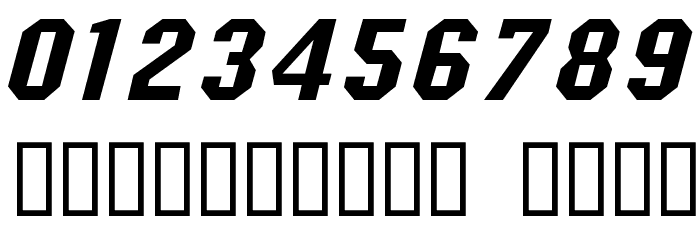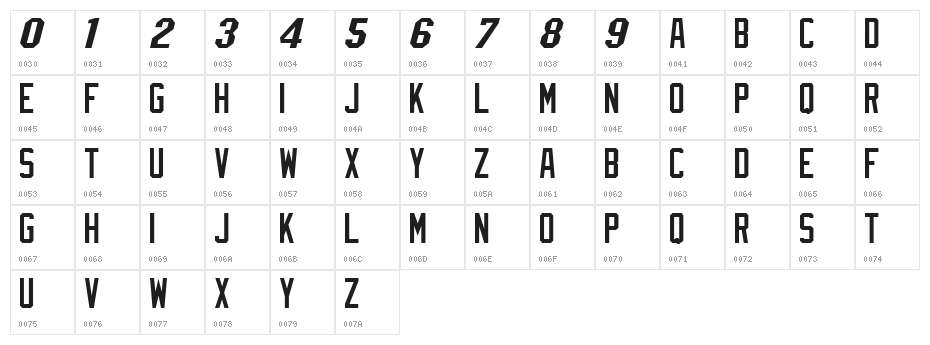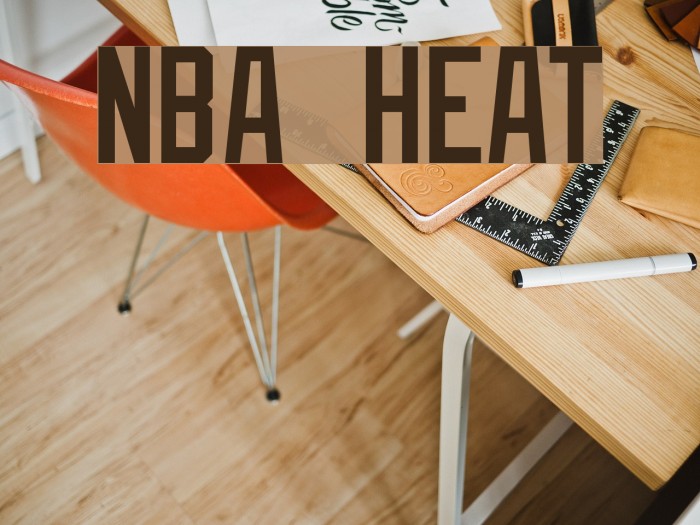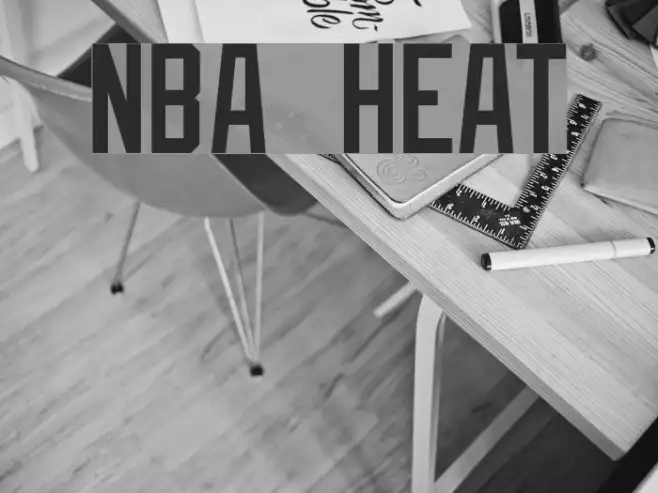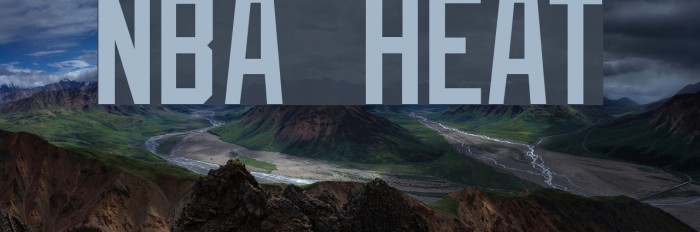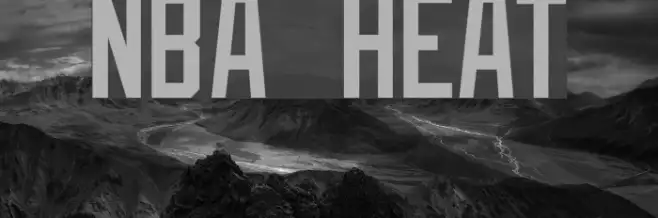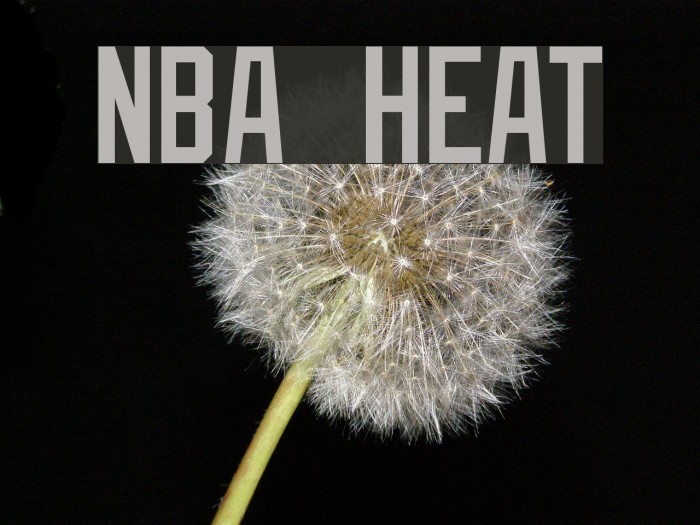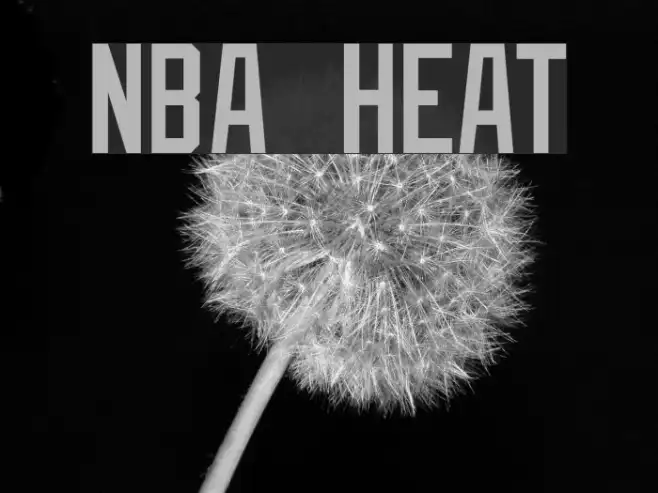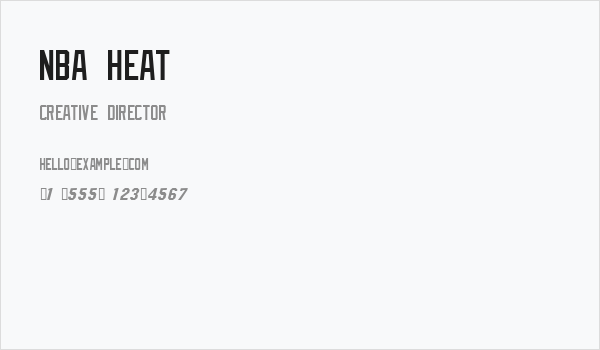
NBA Heat Font
NBA Heat Description
This font features a bold and angular design, characterized by its strong geometric shapes and sharp edges. The uppercase letters are uniform in height, with a consistent stroke width that gives it a sturdy and impactful appearance. The numbers follow the same bold style, ensuring readability and a cohesive look. The font's design is reminiscent of sports and athletic themes, making it ideal for projects that require a dynamic and energetic feel. Its structured form and clear lines make it suitable for various applications where visibility and impact are essential.